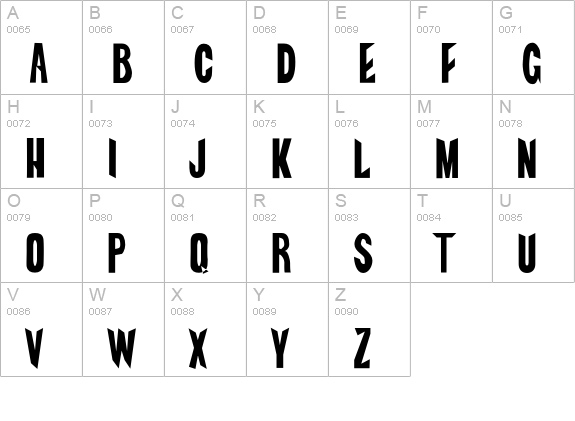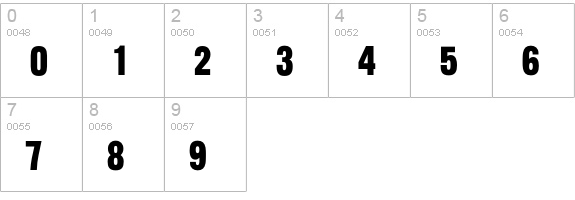
Timstypo Font Details
Introducing Timstypo font, a stunning typeface designed to add a touch of elegance and sophistication to your projects. With its clean lines and graceful curves, Timstypo effortlessly captures attention and delivers a timeless appeal. This versatile font is perfect for a wide range of design applications, from branding and logos to headlines and body text. Its legibility ensures that your message is easily communicated, while its unique personality adds a touch of character to any project. But what truly sets Timstypo apart is its accessibility. We understand the importance of having quality resources at your disposal, which is why we are thrilled to offer Timstypo as a free download exclusively on FontsMarket.com. That's right, you can now enhance your designs with this exceptional font without any cost. Whether you are a professional designer or a creative enthusiast, Timstypo font is a must-have in your collection. With its sleek and modern aesthetic, it effortlessly adapts to various design styles and easily elevates the overall visual impact of your work. So why wait? Don't miss out on this incredible opportunity to add Timstypo to your font library. Simply head over to FontsMarket.com and download this remarkable font for free. Experience the beauty and versatility that Timstypo brings to your design projects and let your creativity soar.